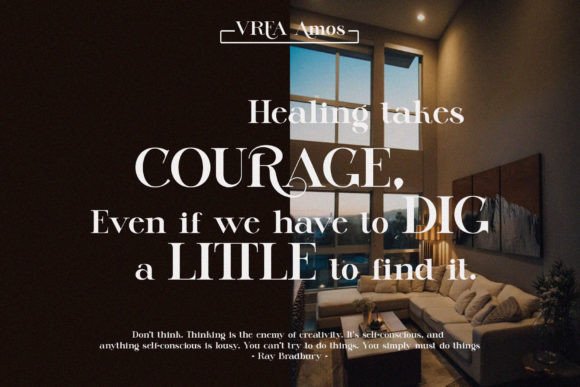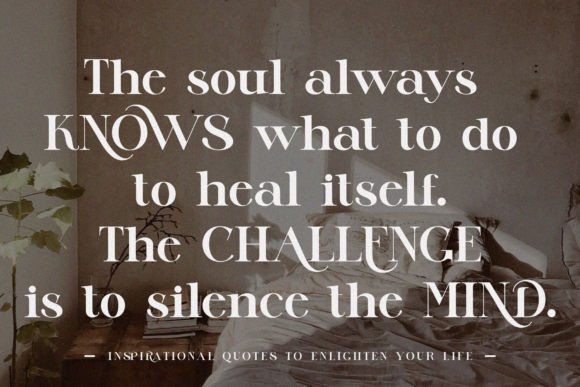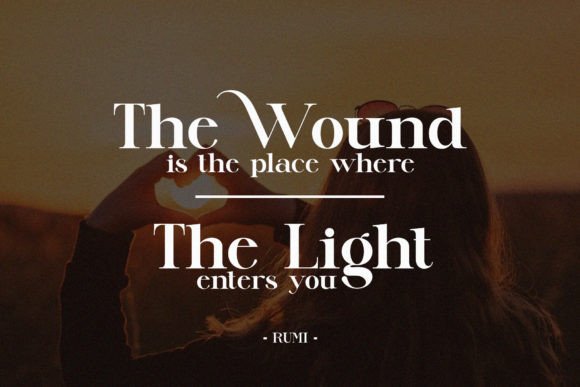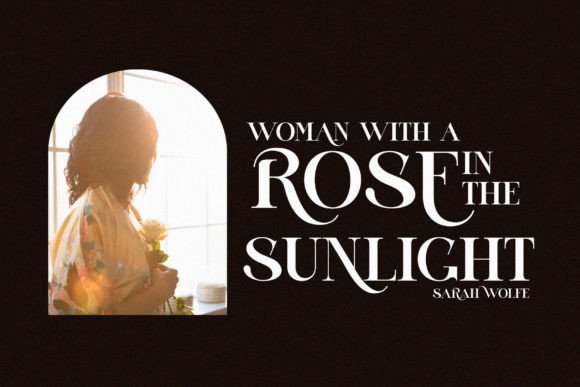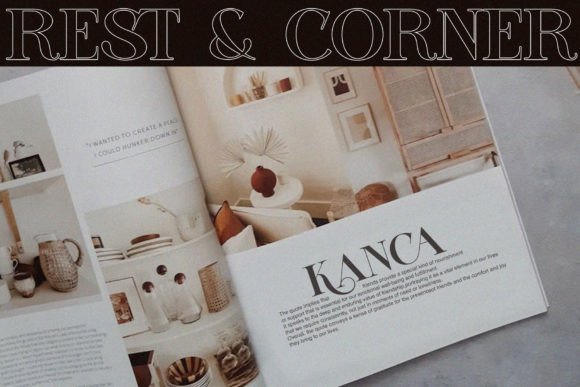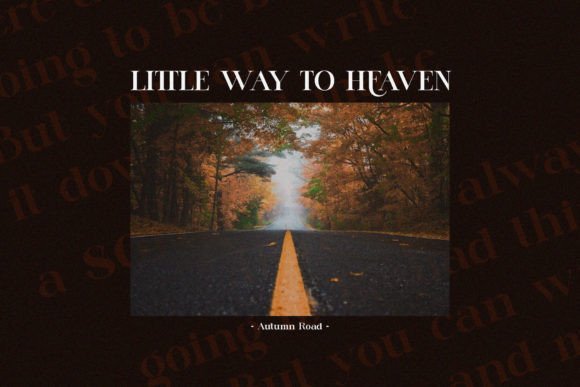
Introducing **ASTIRA**: The Modern Ligature Serif Font for Elegant Designs
In the world of design, typography plays a crucial role in conveying messages, expressing creativity, and building brand identities. For designers and crafters seeking a font that embodies modernity, elegance, and sophistication, **ASTIRA** is here to revolutionize your design endeavors. Inspired by the minimalist logo aesthetic, **ASTIRA** is a modern ligature serif font designed to elevate your templates, brochures, videos, advertising branding, logos, invitations, layout designs, and more.
The Inspiration Behind **ASTIRA**
The **ASTIRA** font draws its inspiration from the clean lines, simplicity, and elegance of minimalist logo designs. The creator aimed to capture the essence of modern typography while infusing it with a touch of classic sophistication. The result is a font that is not only visually appealing but also highly versatile, making it suitable for a wide range of design applications.
Key Features of **ASTIRA**
- Modern Ligature Serif**: **ASTIRA** boasts a contemporary ligature serif design that sets it apart from traditional serif fonts. The ligatures add a unique touch, enhancing the overall aesthetic of your designs.
- Elegant and Sophisticated**: The font’s clean lines, balanced proportions, and subtle curves give it an air of elegance and sophistication, perfect for high-end branding, luxury goods, and premium services.
- Versatile**: **ASTIRA** is designed to be versatile, making it suitable for various design projects, from print materials like brochures and invitations to digital applications such as video titles and website headers.
- Easy to Read**: Despite its elegant design, **ASTIRA** remains highly legible, ensuring that your message is conveyed clearly and effectively.
Design Applications for **ASTIRA**
**ASTIRA**’s flexibility makes it an excellent choice for a multitude of design projects, including:
- Template Design**: Create stunning templates for presentations, reports, and proposals that exude professionalism and style.
- Brochures and Flyers**: Design eye-catching brochures and flyers that capture the attention of your audience and leave a lasting impression.
- Video and Film Titles**: Add a touch of elegance to your video and film titles, making them more engaging and memorable.
- Advertising and Branding**: Develop a strong brand identity with **ASTIRA**, perfect for luxury brands, high-end products, and premium services.
- Logos and Icons**: Craft unique logos and icons that stand out, using **ASTIRA**’s ligature features to create distinctive marks.
- Invitations and Stationery**: Design beautiful invitations, business cards, and letterheads that reflect your personal or brand style.
- Layout Design and Crafting**: Use **ASTIRA** to add a sophisticated touch to your layout designs, crafting projects, and other creative endeavors.
- Beauty and Cosmetics Design**: Create stunning designs for beauty and cosmetics brands, leveraging **ASTIRA**’s elegance and modernity.
Why Choose **ASTIRA**?
In a sea of fonts, **ASTIRA** stands out for its unique blend of modernity, elegance, and versatility. Here are a few reasons why designers and crafters should consider **ASTIRA** for their next project:
- Unique Aesthetic**: **ASTIRA** offers a fresh take on traditional serif fonts, providing a unique aesthetic that can help your designs stand out.
- High Versatility**: Its adaptability across various design applications makes **ASTIRA** a valuable addition to any designer’s font library.
- Elegance and Sophistication**: **ASTIRA** brings an unparalleled level of elegance and sophistication to your designs, ideal for projects requiring a high-end feel.
In conclusion, **ASTIRA** is more than just a font; it’s a design solution that can elevate your creative projects to new heights. Whether you’re a designer, crafter, or simply someone who appreciates beautiful typography, **ASTIRA** is an excellent choice for anyone looking to add a touch of modern elegance to their work.